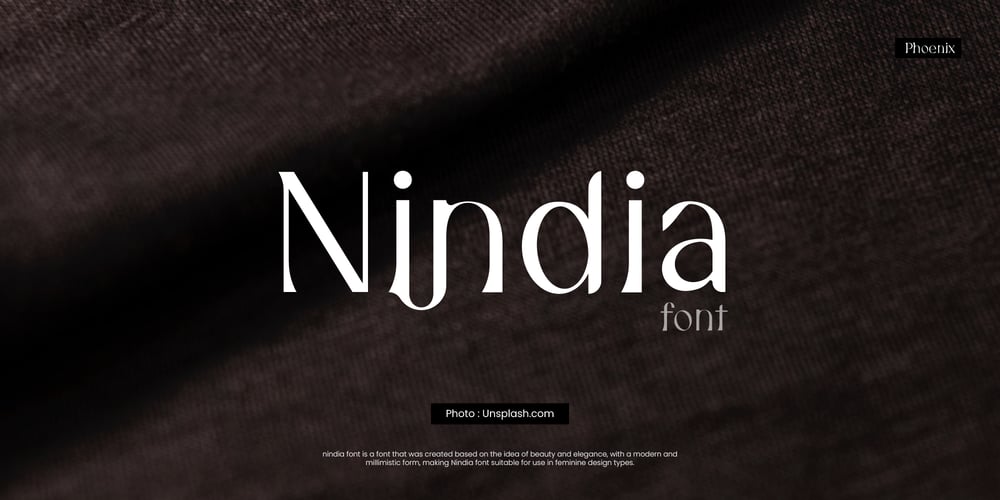
Nindia Font Family was designed by Alif Naufal Muzakki and published by Phoenix Group. Nindia contains 1 styles and family package options. Nindia font is a font that was created based on the idea of beauty and elegance, with a modern and millimistic form, making Nindia font suitable for use in feminine design types.